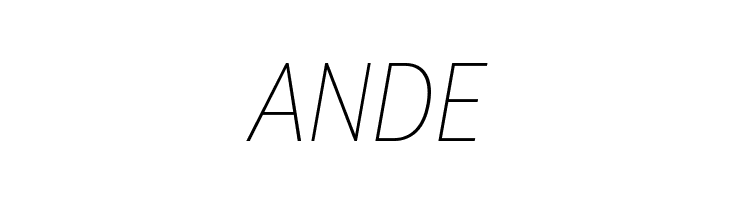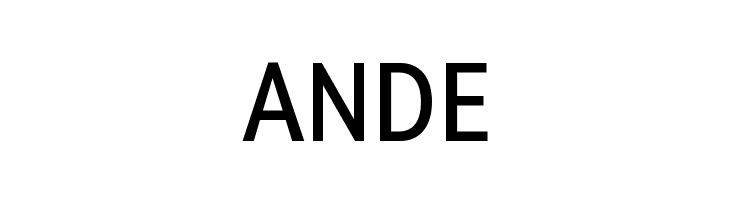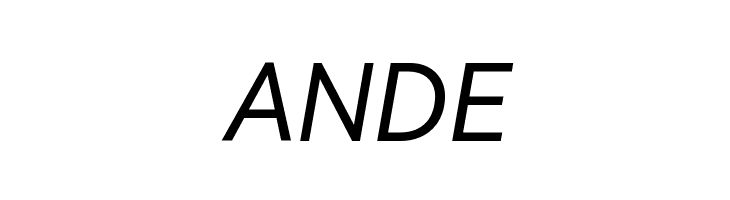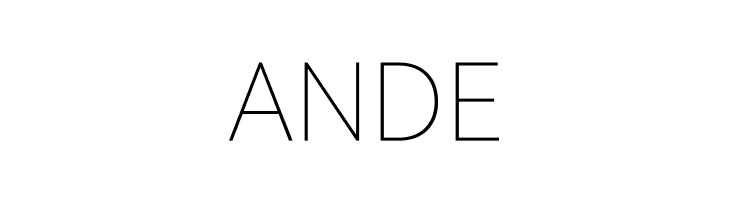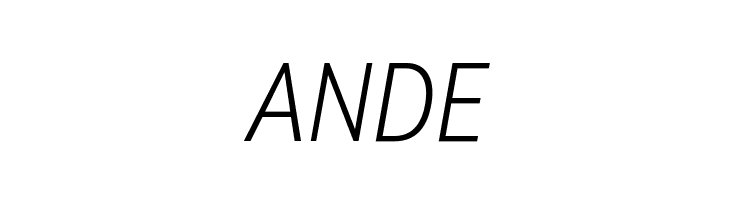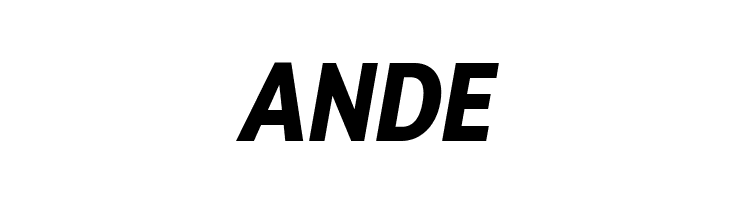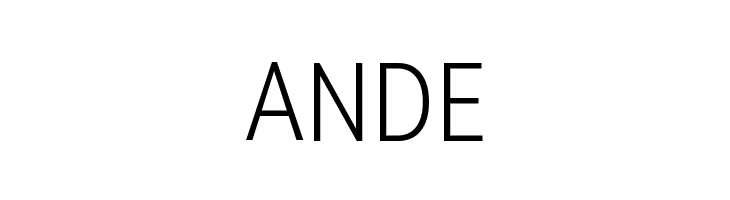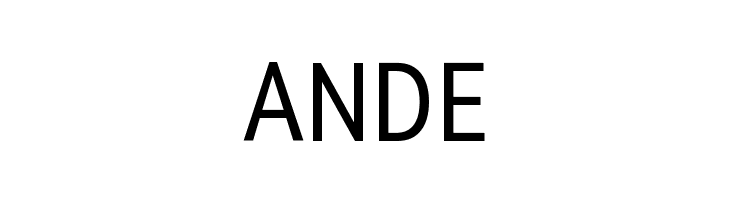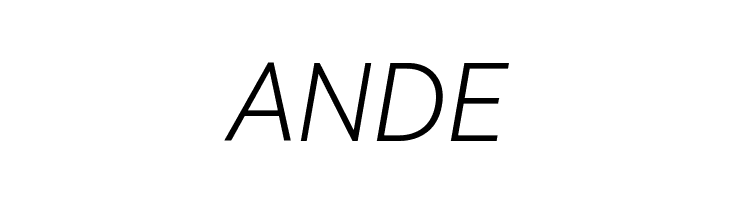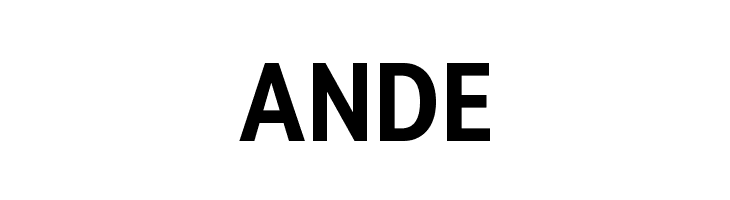
A modern, clean sans-serif font with balanced letterforms and consistent stroke widths.
A bold, modern sans-serif font with clean lines and uniform strokes.
A bold, modern sans-serif font with an italic style, perfect for impactful designs.
A bold, modern sans-serif font with clean lines and excellent readability.
A modern, bold, and italic sans-serif font with a clean and dynamic style.
A modern, condensed sans-serif font with excellent readability and space efficiency.
A bold, condensed sans-serif font with strong, uniform strokes and minimal contrast.
A bold, condensed, and italicized sans-serif font with a modern and dynamic style.
A modern, bold, and condensed sans-serif typeface with excellent readability.
A modern, bold, italic, and condensed sans-serif font with clean lines.
A modern, condensed sans-serif italic font with medium contrast and normal spacing.
A modern, light, and condensed sans-serif font with a clean and minimalistic design.
A sleek, modern, and condensed light italic font with tight character spacing.
A modern, condensed sans-serif font with clean lines and balanced proportions.
A modern, condensed sans-serif font with a medium weight and italic style.
A modern, thin sans-serif font with condensed letterforms and a minimalist style.
A sleek, modern, condensed thin italic font with a minimalist aesthetic.
A modern, italic sans-serif font with clean lines and a sleek appearance.
A modern, light, and clean sans-serif font with excellent readability.
A modern, light, italic sans-serif font with clean lines and a dynamic slant.
A modern, geometric sans-serif font with uniform stroke widths.
A modern, italic sans-serif font with a clean and dynamic style.
A modern sans-serif font with clean lines and balanced proportions.
A bold, modern font with thick strokes and clean lines.
A bold, modern font with clean lines and strong visual impact.
A modern, clean sans-serif font with balanced spacing and smooth curves.
A clean, modern sans-serif font with uniform stroke width and excellent readability.
A modern, geometric sans-serif font with balanced proportions and clear readability.
A thin, modern sans-serif font with clean lines and a minimalist style.
A modern, clean sans-serif font with excellent readability.